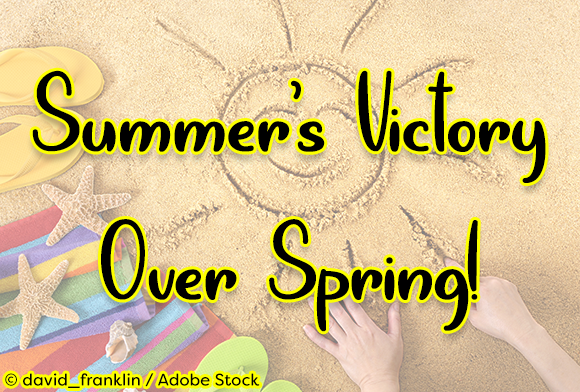
Summer’s Victory Over Spring is a calligraphy handwriting font that is great for your Summer projects! This handwritten font looks at home in Summer based designs and crafting projects.